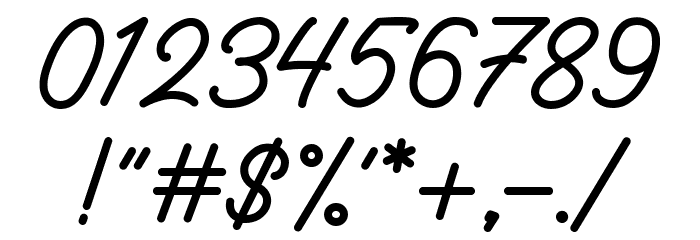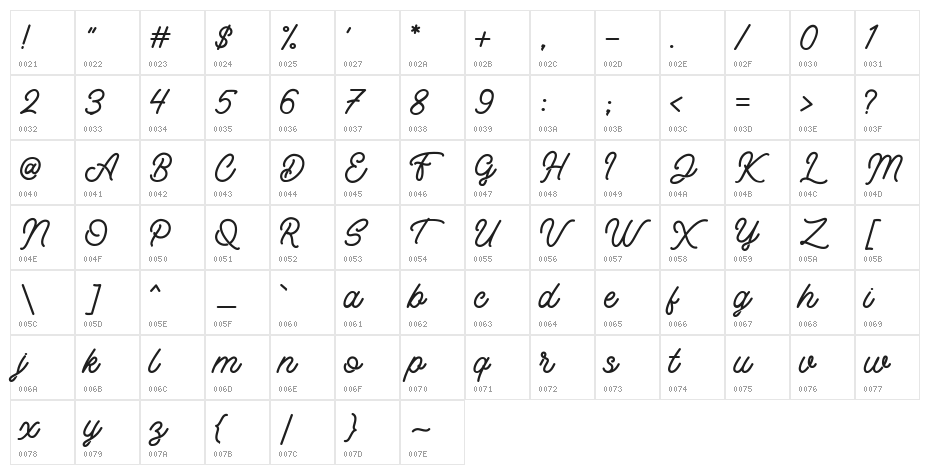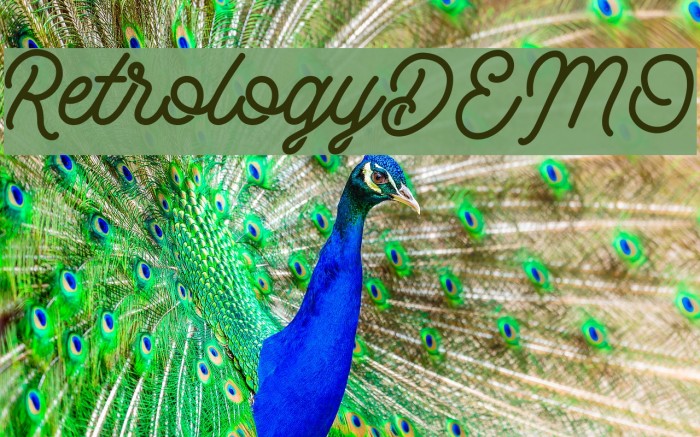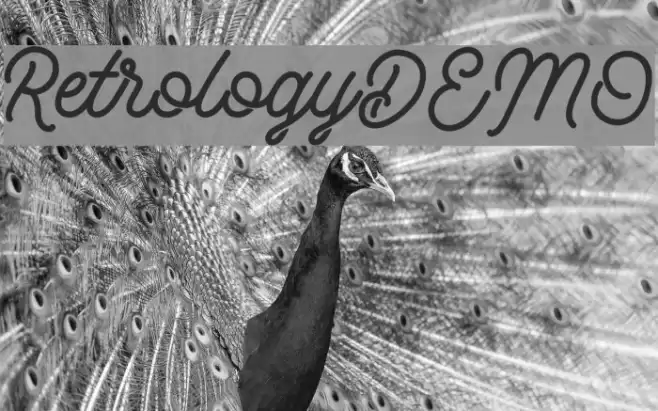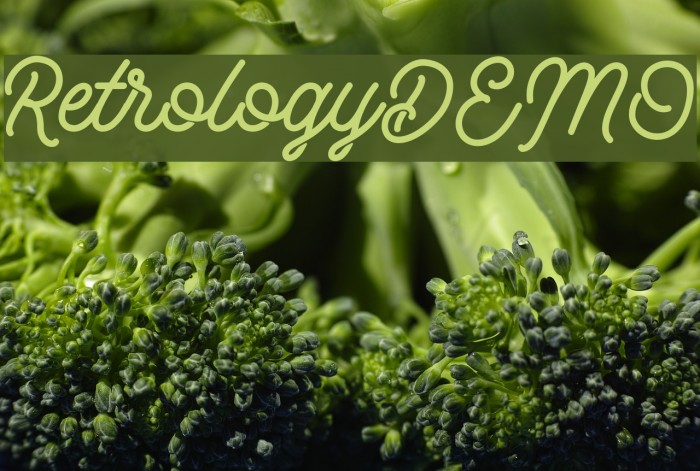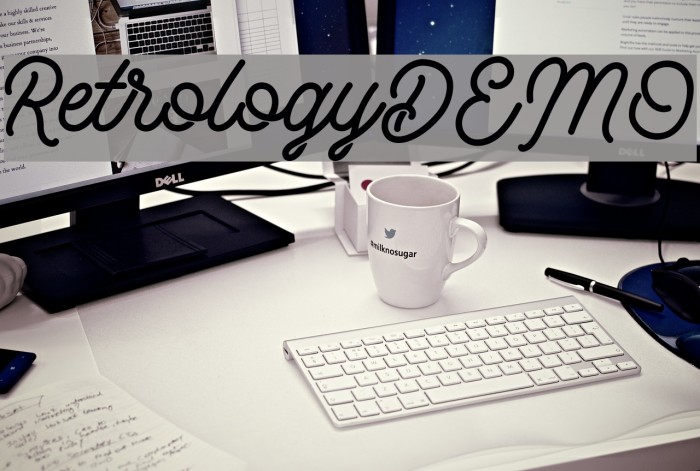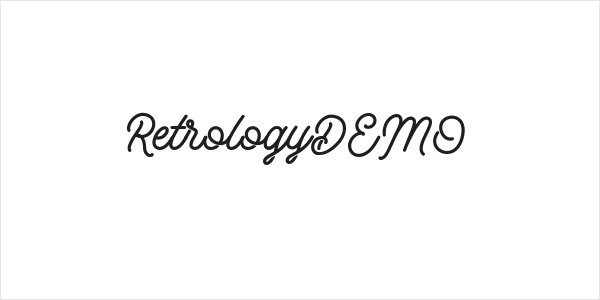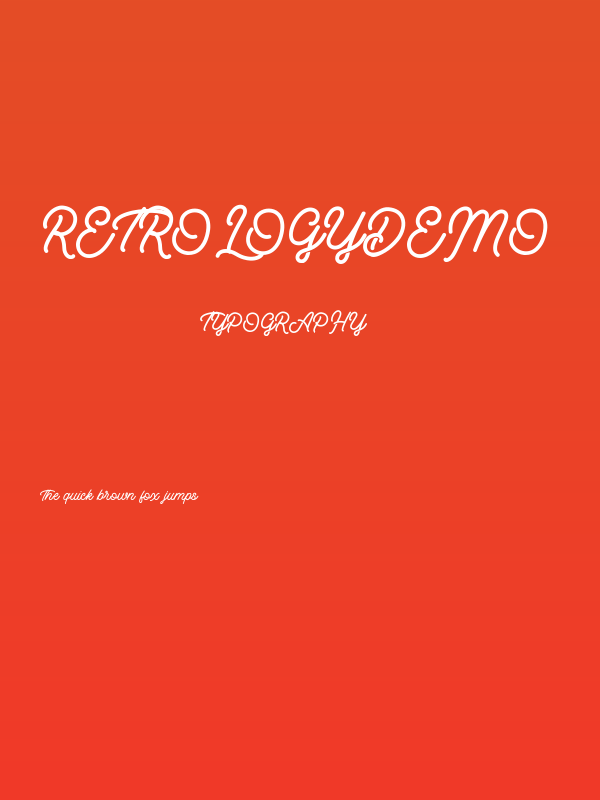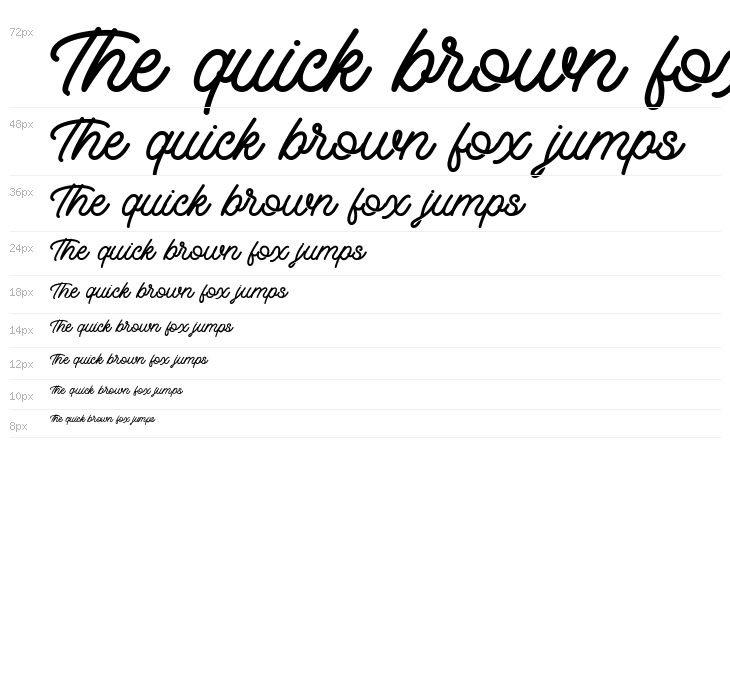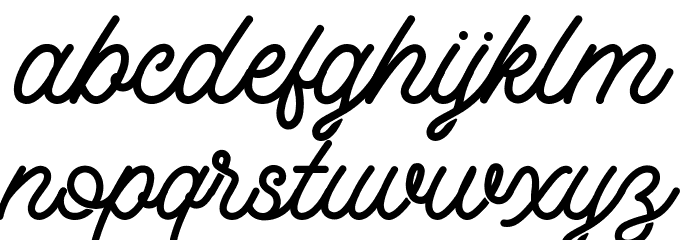
RetrologyDEMO Font
RetrologyDEMO Description
This font features a flowing, cursive style that mimics elegant handwriting. The uppercase letters are slightly more ornate, with smooth curves and loops that add a touch of sophistication. The lowercase letters maintain a consistent flow, creating a seamless connection between characters. Numbers and special characters are designed with the same fluidity, ensuring a cohesive look across all text. The overall appearance is both classic and modern, making it versatile for various design needs.